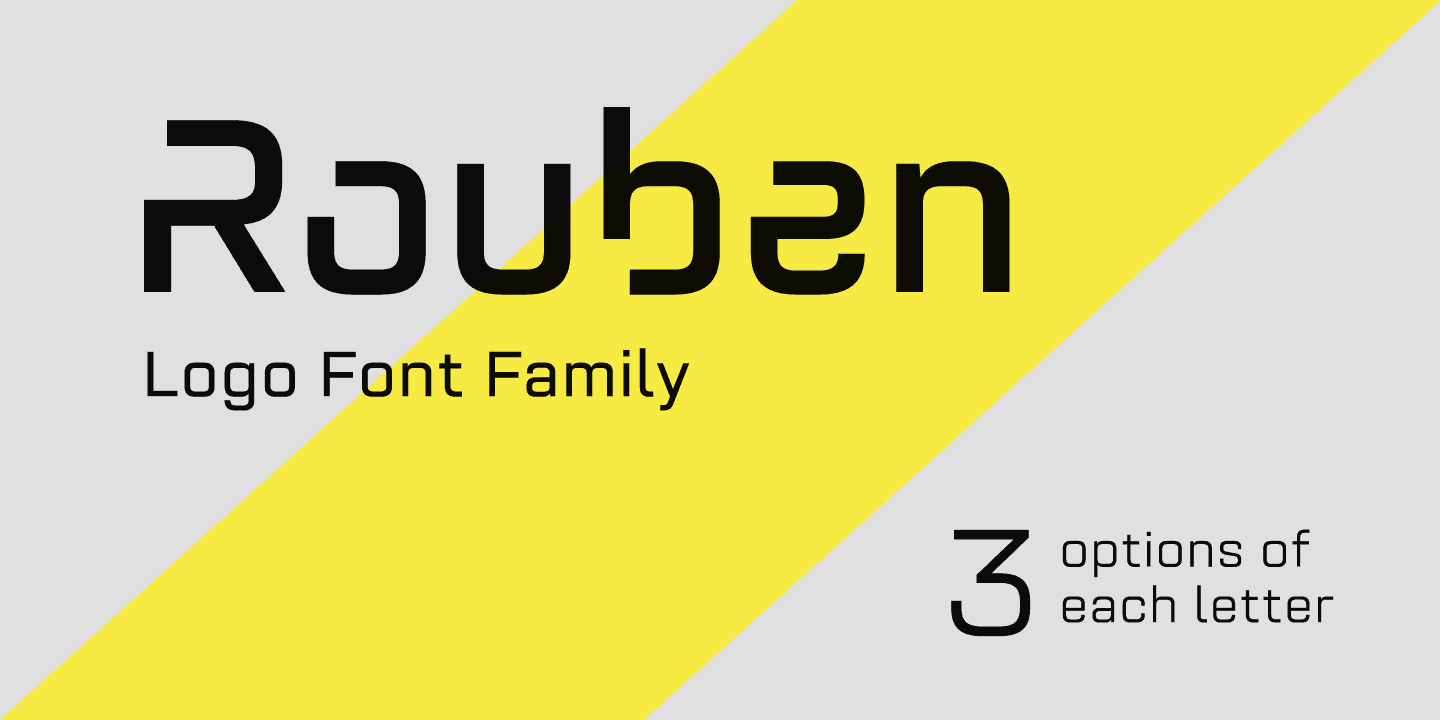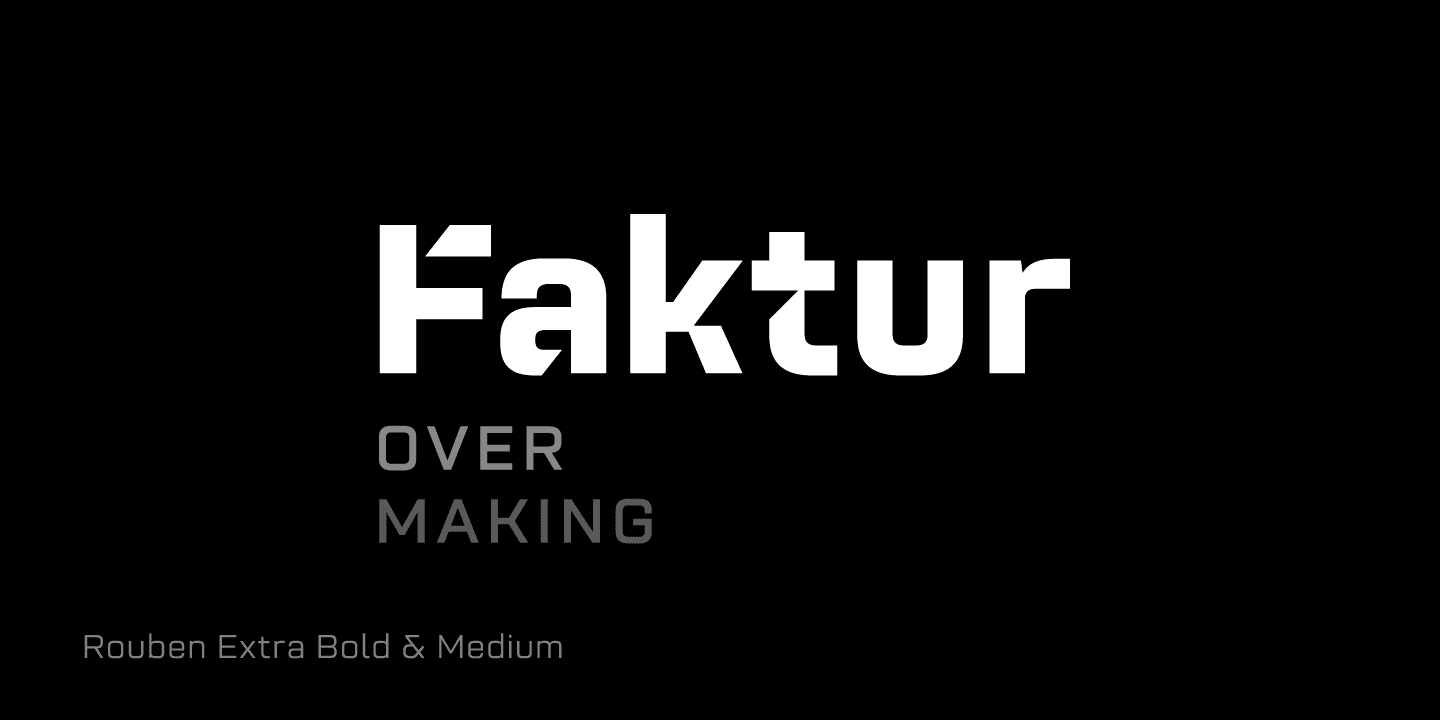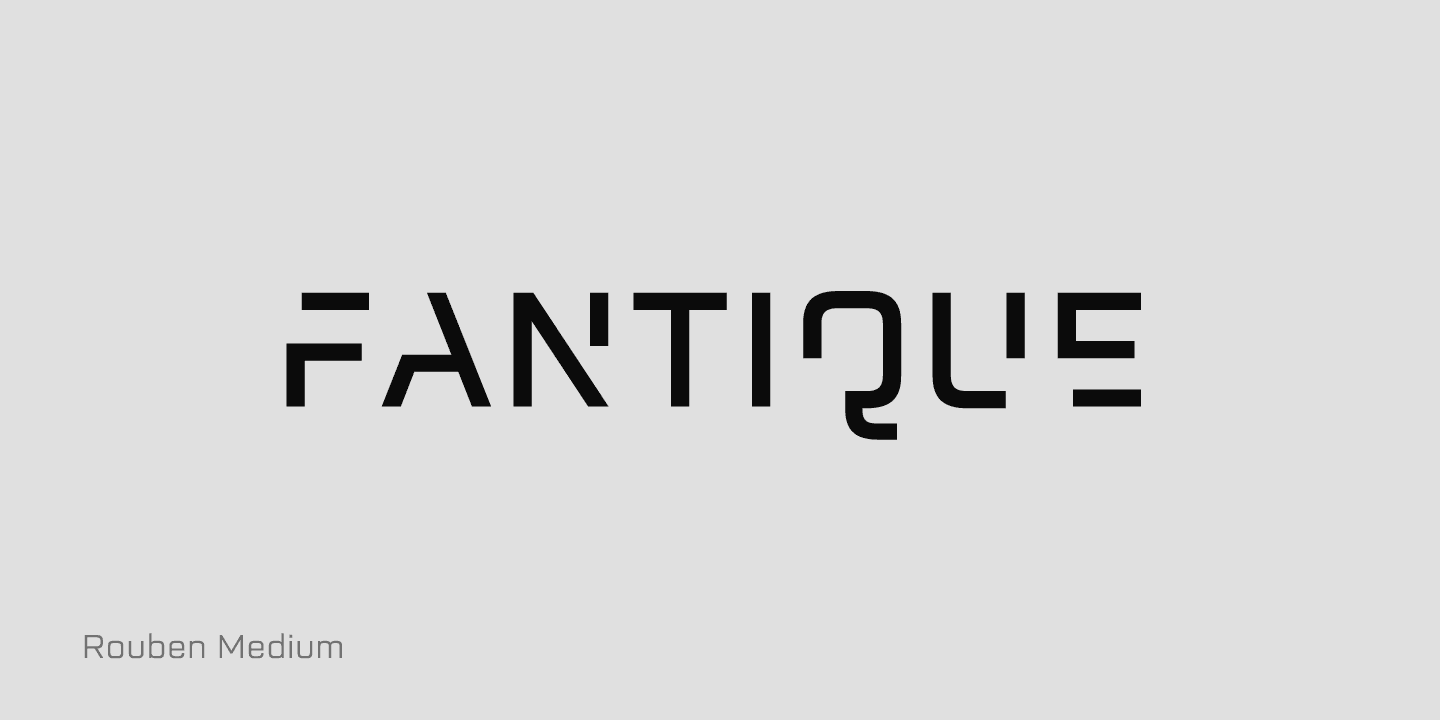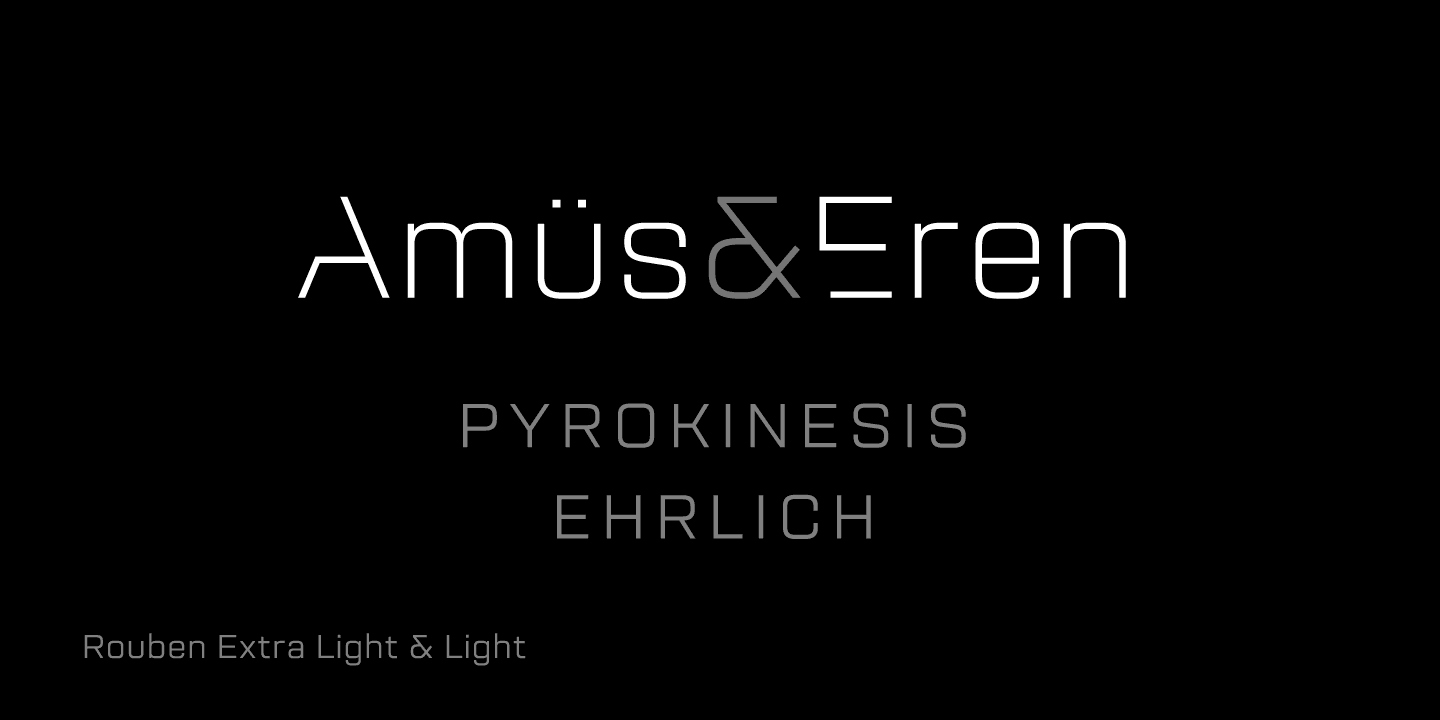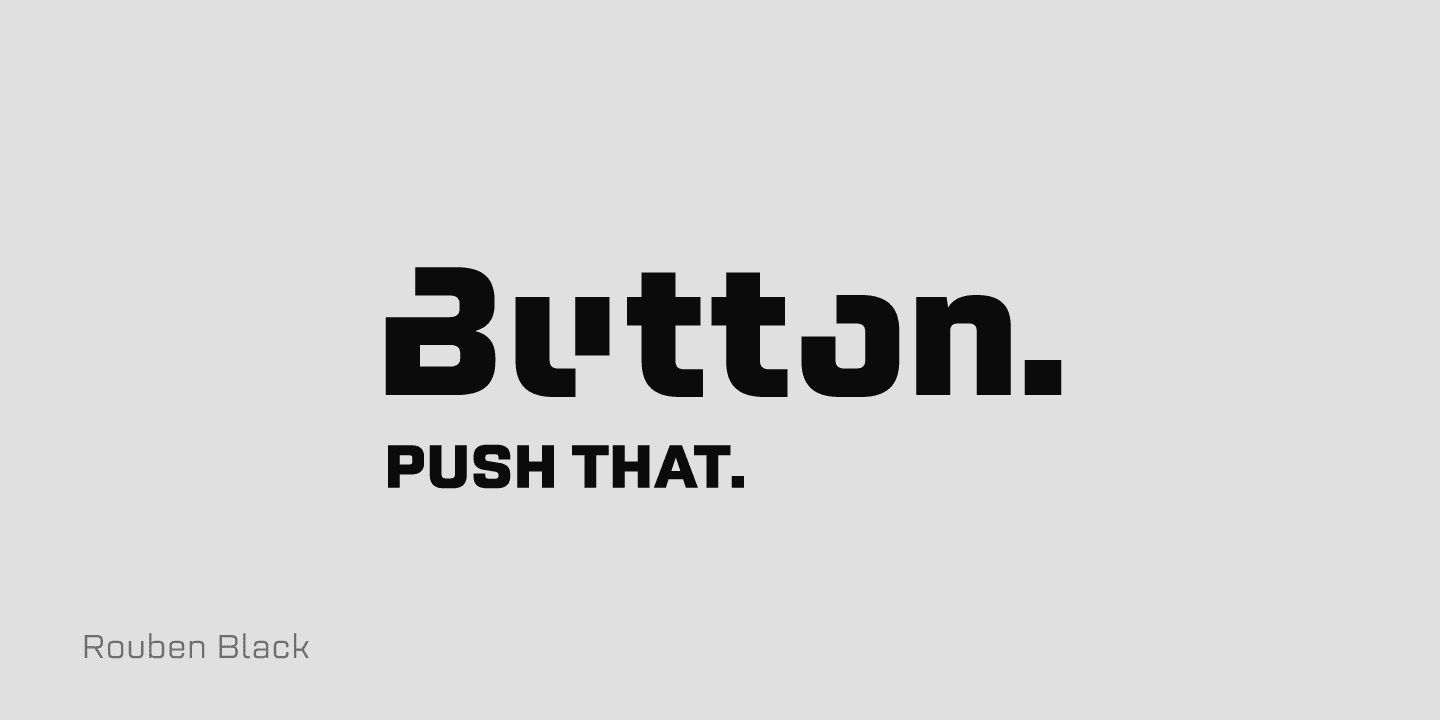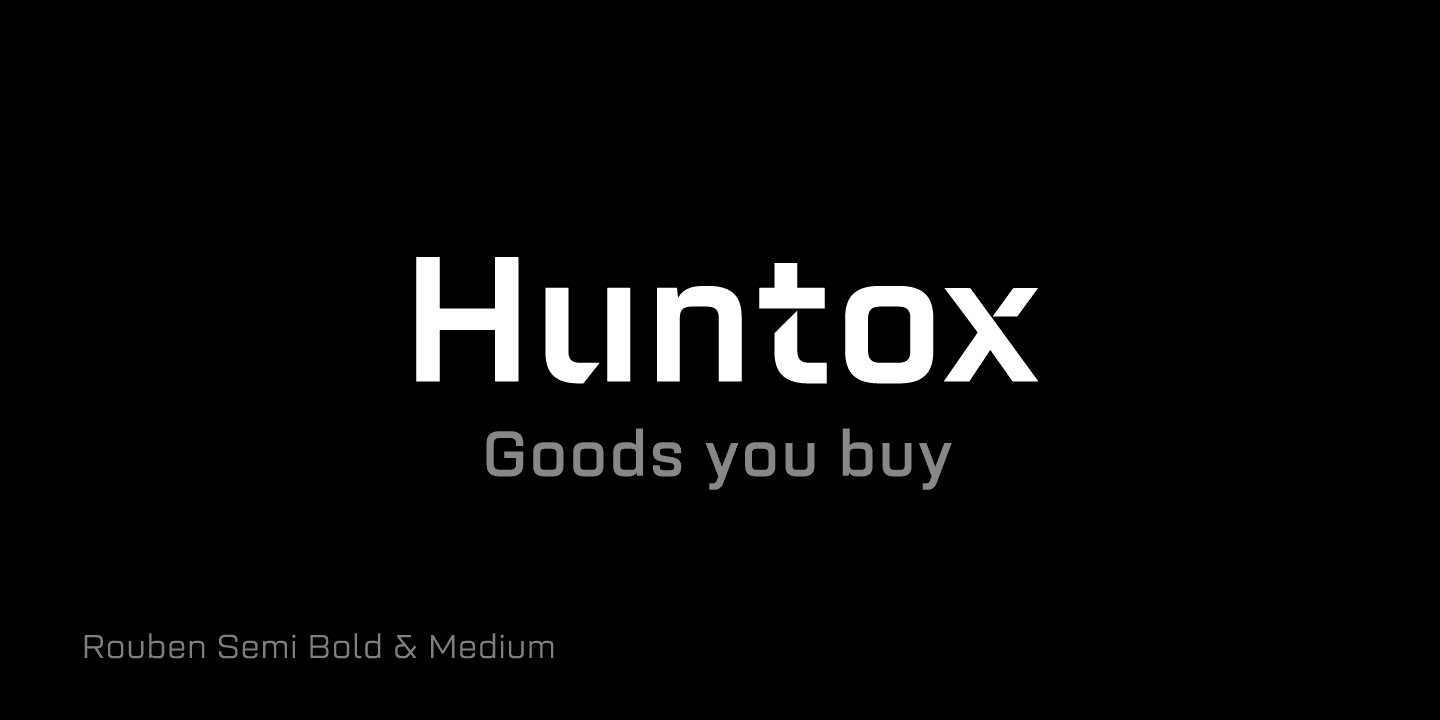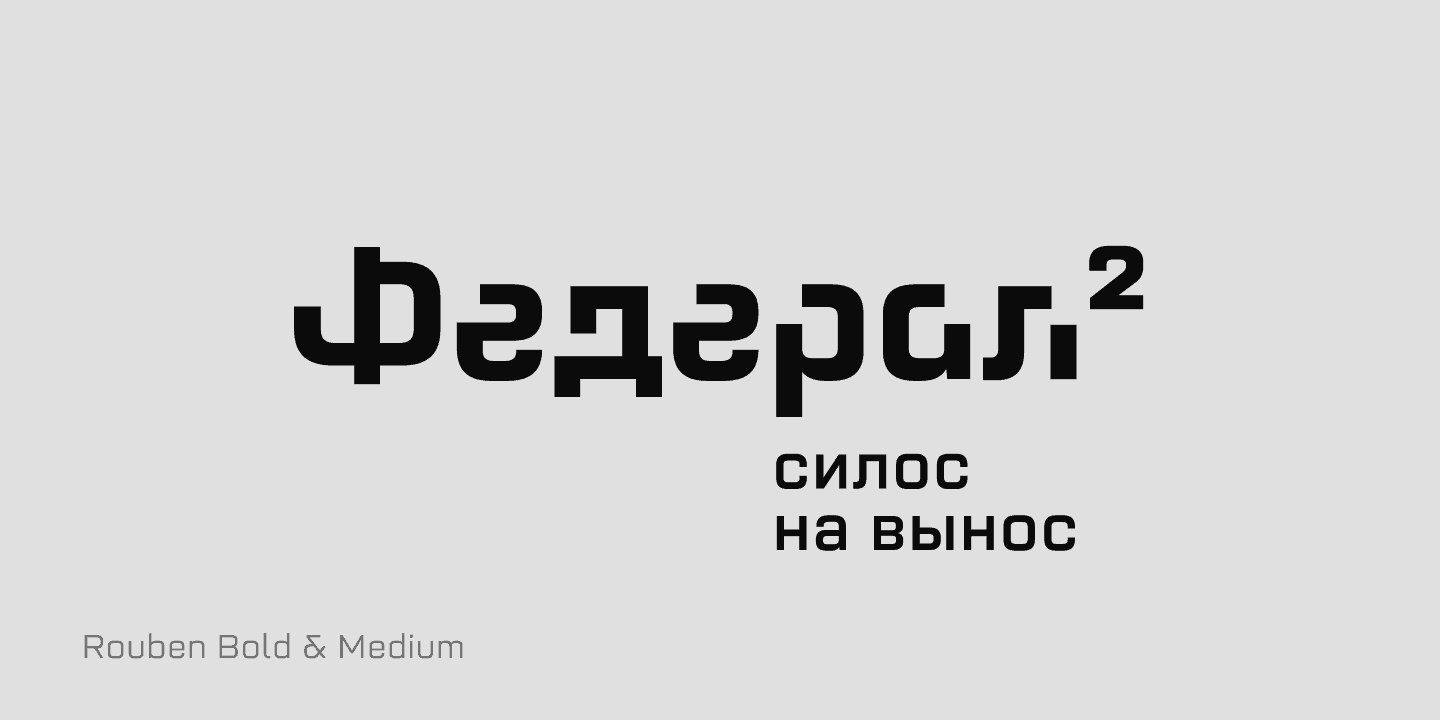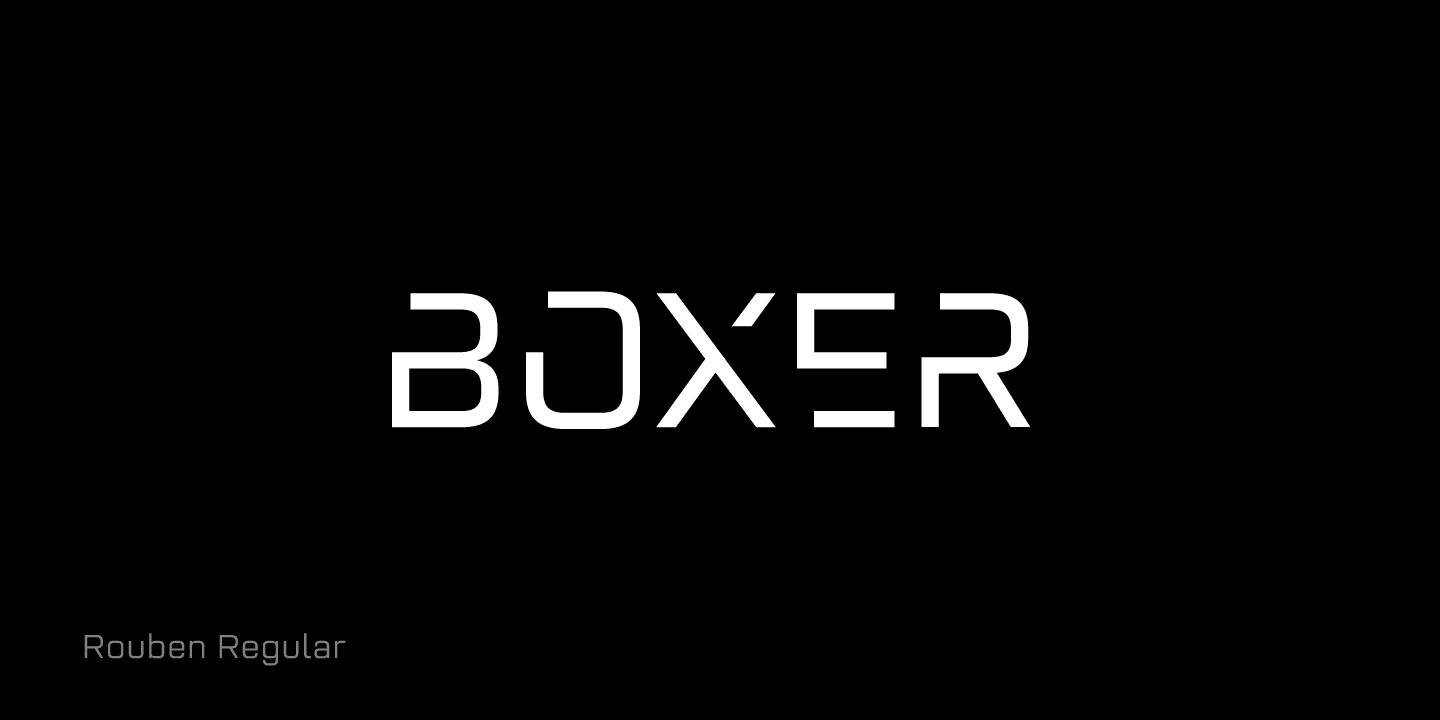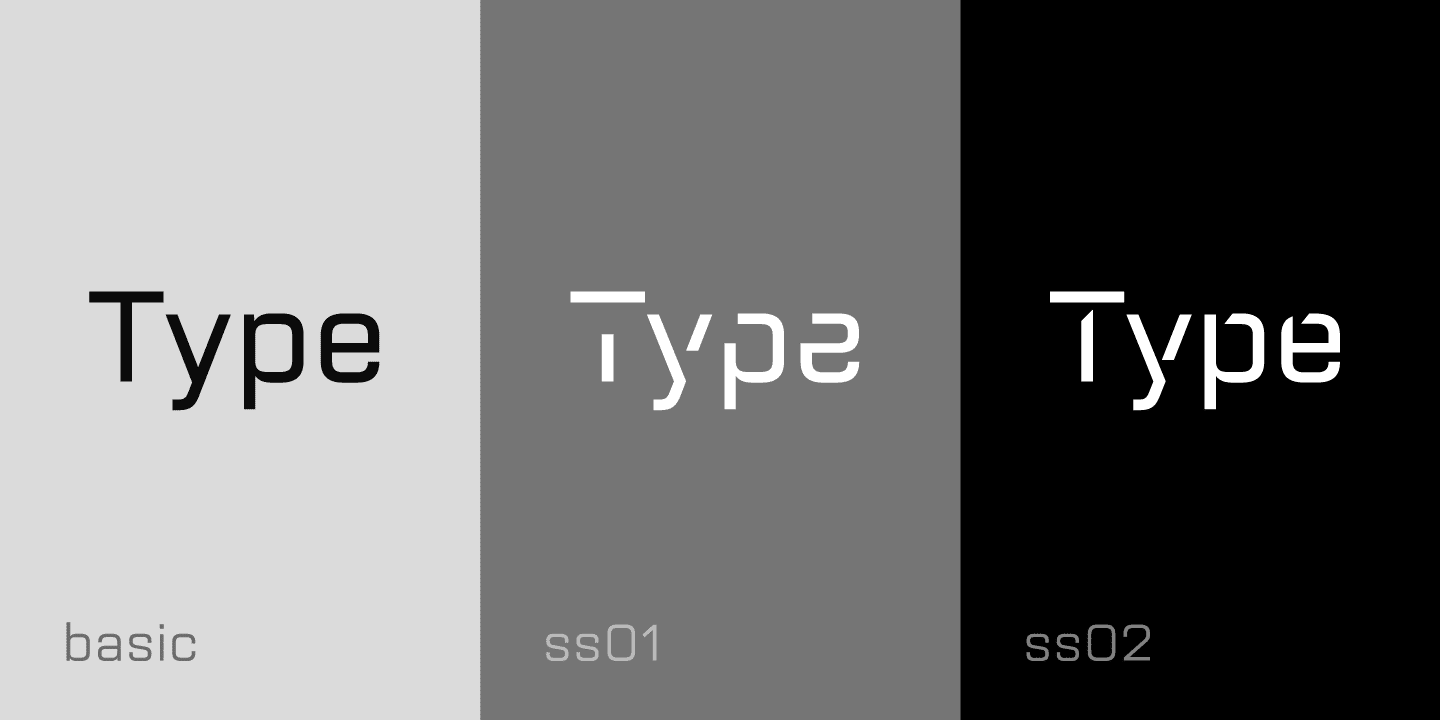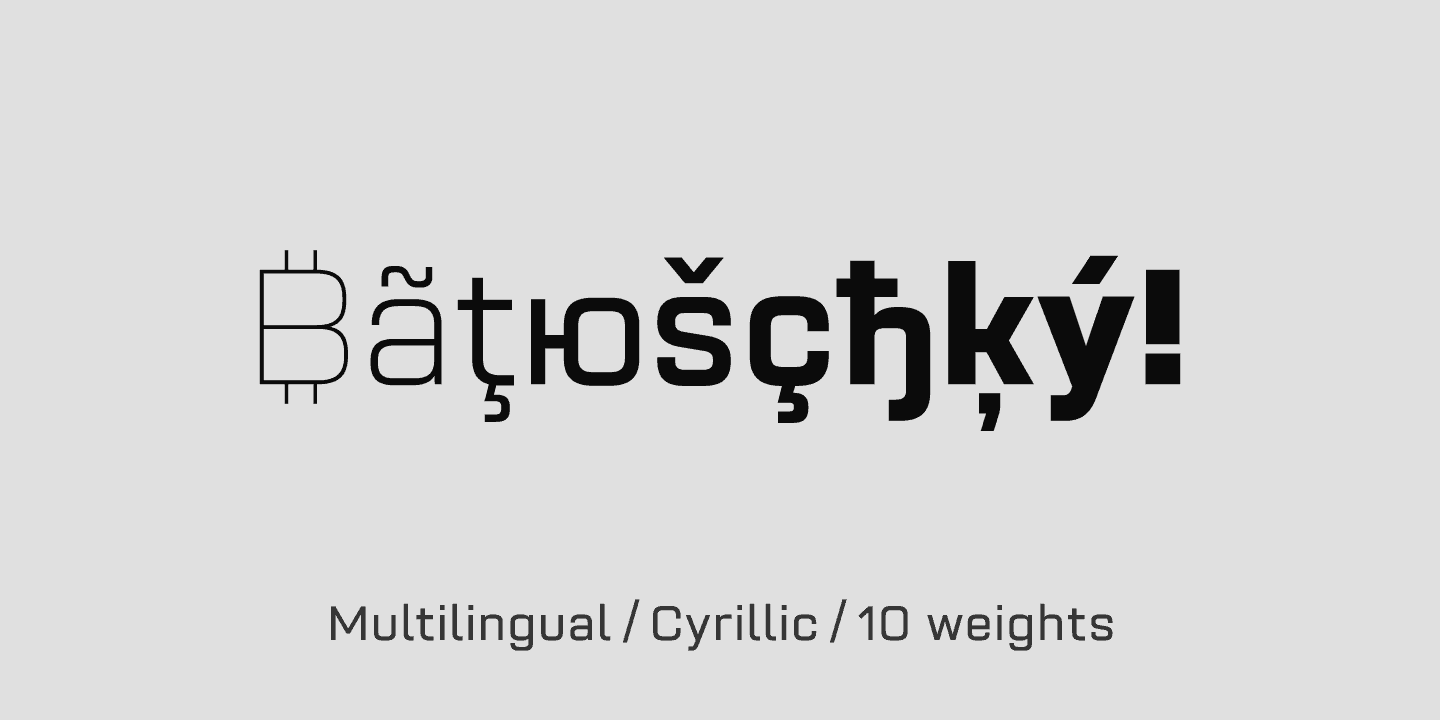
Rouben Font Family Bundle – Creative Logo Display Font
Rouben is a versatile typeface with a few different glyph designs that allows it to perform amazingly on both long texts and display compositions, with a classic geometric sans-serif font version as well as a futuristic stencil version that's perfect for logos, branding, typographic compositions and other display purposes
This font family features vast multilingual support for languages that use Latin as well as Cyrillic scripts, and comes with 10 different font weights from thin to black, as well as special characters and OpenType features which you can easily access using most major image editors
Rouben is a font family for design of minimalistic logos. The fonts are suitable for creating wordmarks, titles, taglines. Use alternative characters to emphasize separate letters in your text.
- 10 weights from thin to black
- Multilanguage support with Cyrillic & Latin glyphs
- 2 stylistic alternate types for each letter
- 3 styles of Latin script letters
- 3 styles of Cyrillic script letters
- 3 styles of multilingual letters